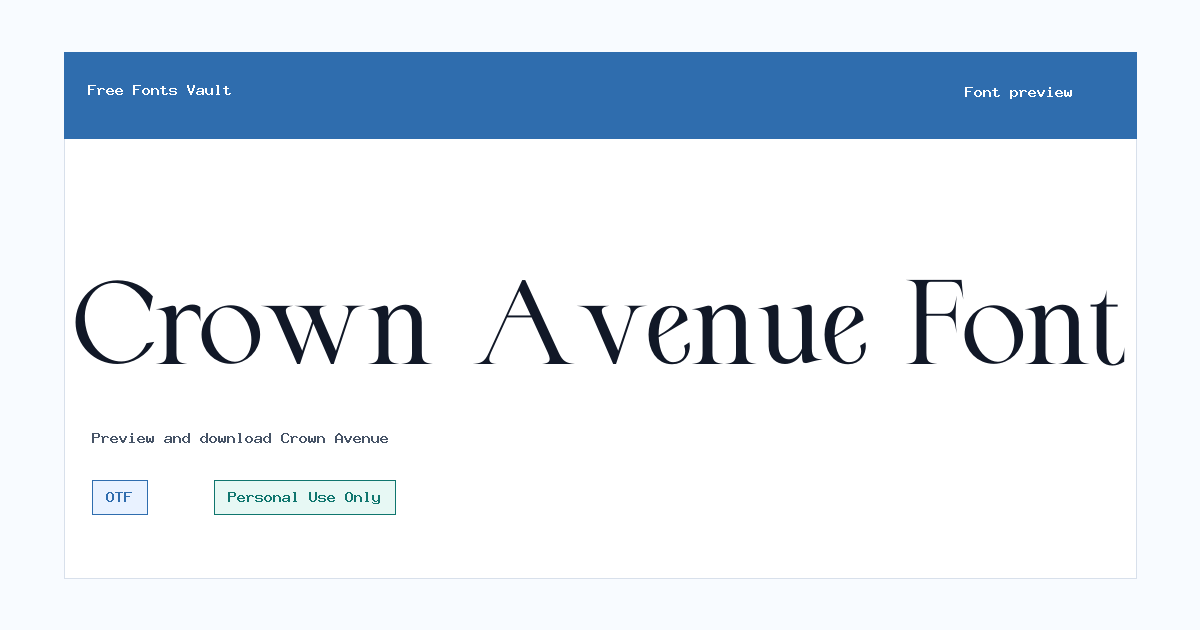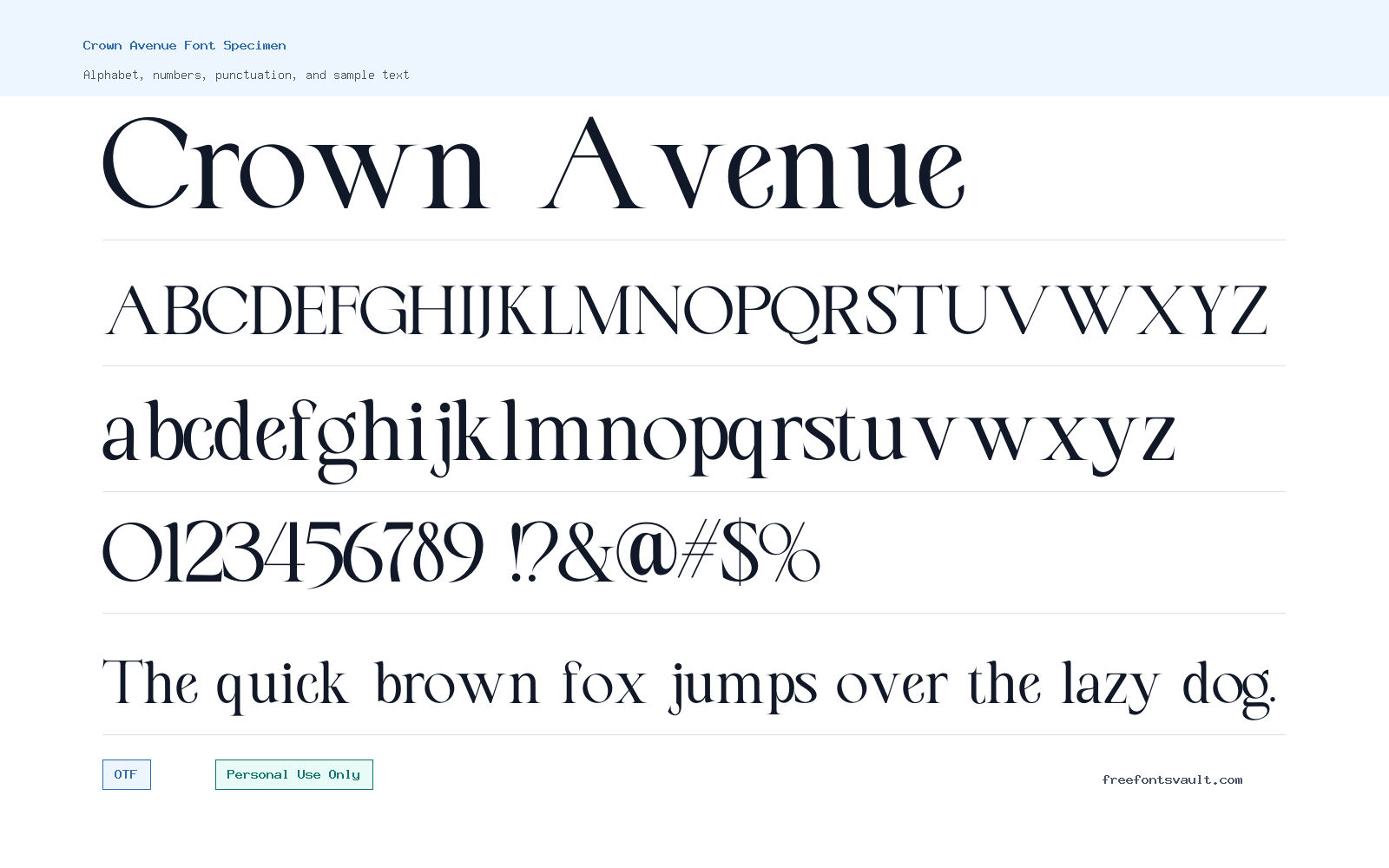
Crown Avenue
- Designer Zaain Type
Crown Avenue is a serif display font with a polished, decorative feel that works best when the text needs to look refined rather than plain. It is a good font to preview for logo concepts, poster titles, invitations, packaging mockups, and other short pieces of display typography.
- Serif display style suited to headings, logos, and short decorative text
- Best used at medium to large sizes where the letterforms can be inspected clearly
- Logo drafts and brand-style mockups
- Poster titles and event headings
- Invitation names, cards, and personal stationery
- Packaging concepts and boutique-style labels
- Social graphics, quote layouts, and title treatments
- Website hero text or editorial mockups where the font is used sparingly
Use Crown Avenue for short text first: names, titles, logos, headings, labels, and display lines. Test uppercase and lowercase combinations in the preview before downloading, and check spacing carefully if you plan to use it for a logo or a large poster title. For longer paragraphs, pair it with a simpler, more readable font and reserve Crown Avenue for the main accent text.
What type of font is Crown Avenue?
Crown Avenue is a serif font with a display-friendly character. It is best tested for headings, logos, posters, invitations, and other short text settings.
Who designed Crown Avenue?
The designer name listed for Crown Avenue is Zaain Type.
Is Crown Avenue good for body text?
It is better for display text than long paragraphs. Use it for titles or accent words, then pair it with a simpler font for body copy.
What should I pair with Crown Avenue?
Try pairing it with a clean sans serif for modern contrast, or a restrained text serif if you want a more classic layout. Avoid pairing it with another highly decorative font, because the design can become hard to read.